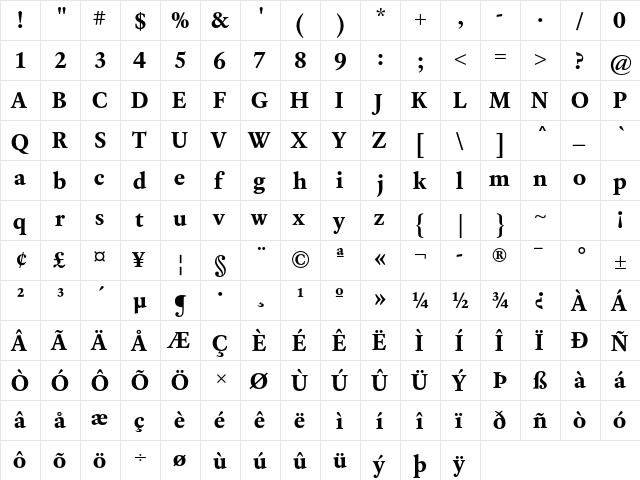
Laurentian Std Bold Font Preview
Laurentian Std Bold
Design Context for Laurentian Std Typeface
Laurentian Std takes a measured approach to typography — its balanced proportions and neutral character make it a reliable workhorse for both digital and print work. The heavy weight commands attention and anchors typographic hierarchies.